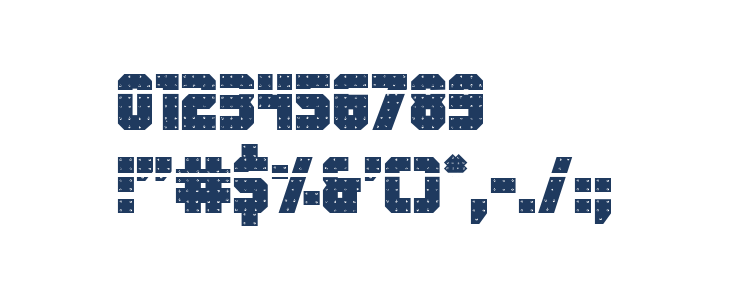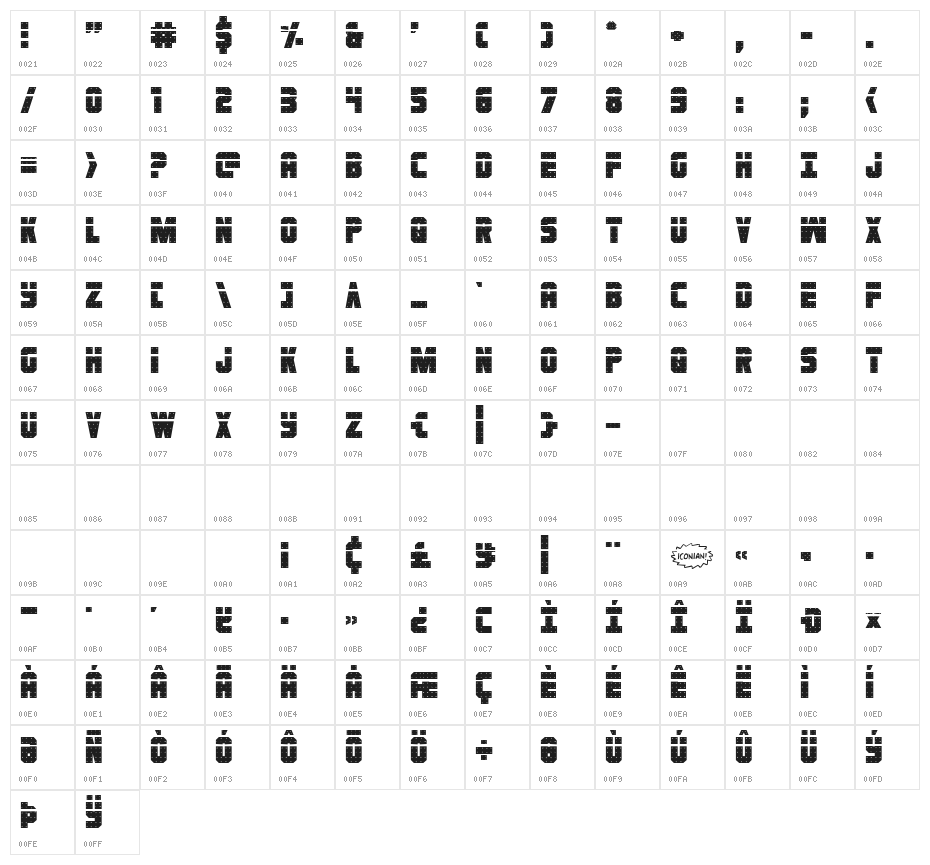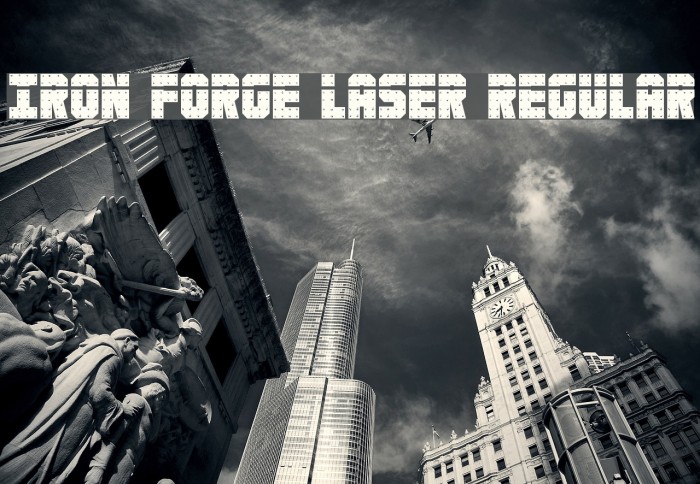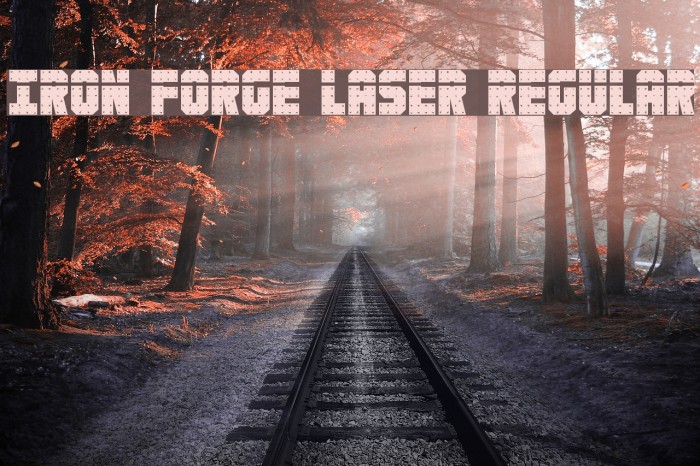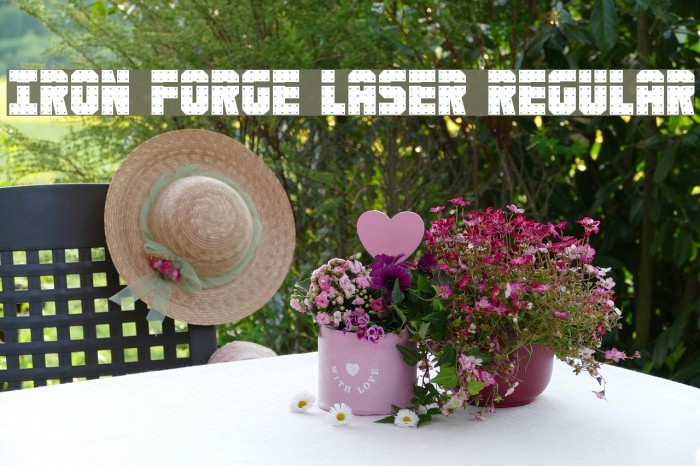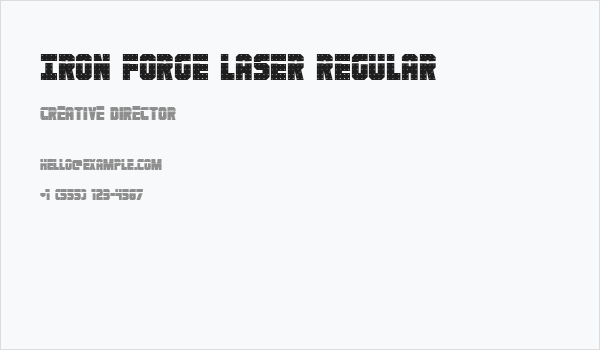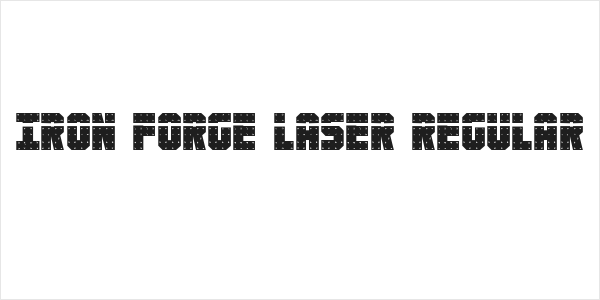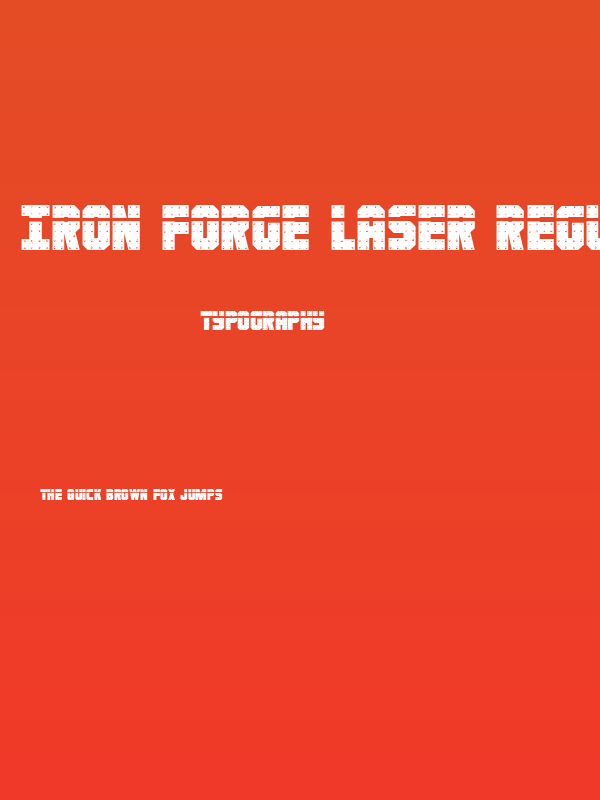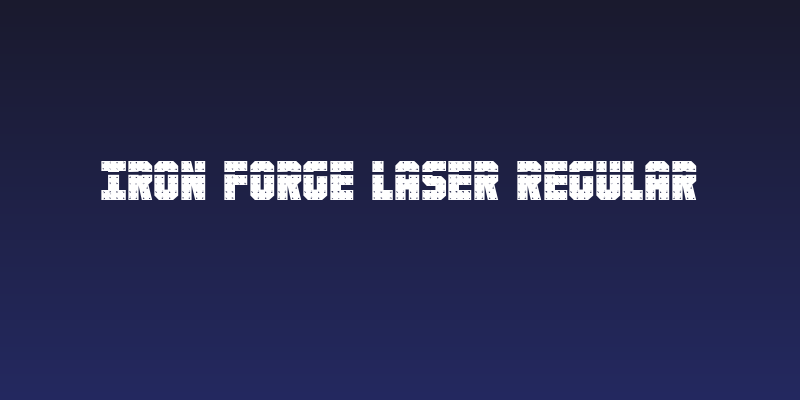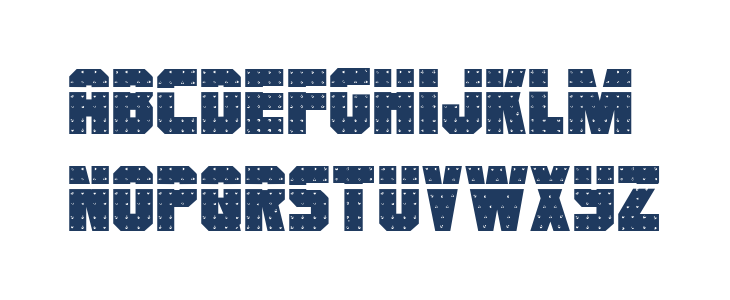
Iron Forge Laser Regular Font
Iron Forge Laser Regular Description
This font features a bold, industrial design with a distinct laser-cut appearance. Each character is constructed with solid, block-like forms that are punctuated by evenly spaced circular cutouts, giving it a rugged, mechanical feel. The uppercase and lowercase letters maintain a consistent geometric structure, while the numbers and special characters follow the same stylistic approach, ensuring uniformity across the typeface. The font's unique style is reminiscent of metalwork or digital displays, making it stand out in any design context.